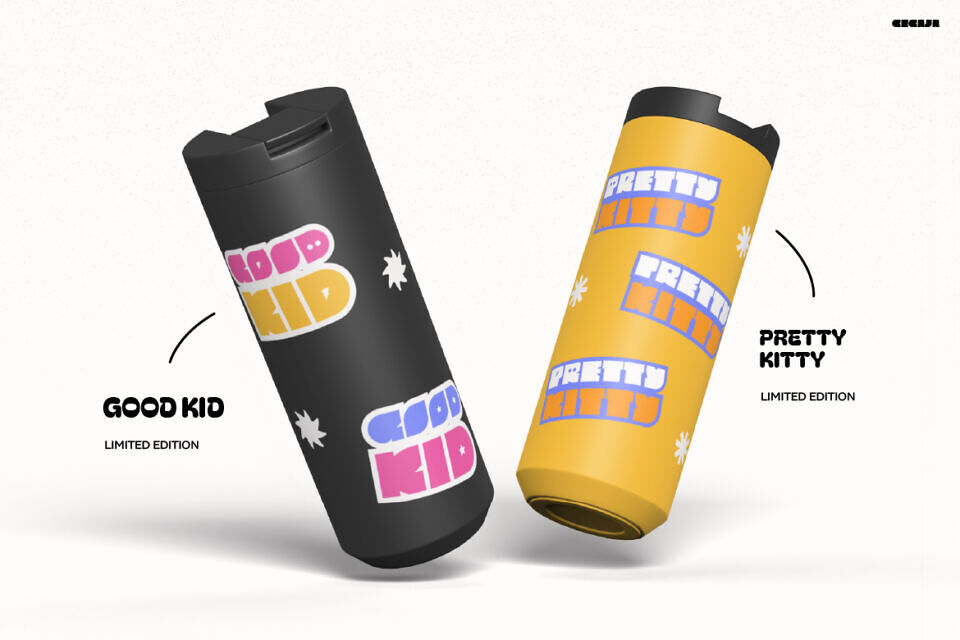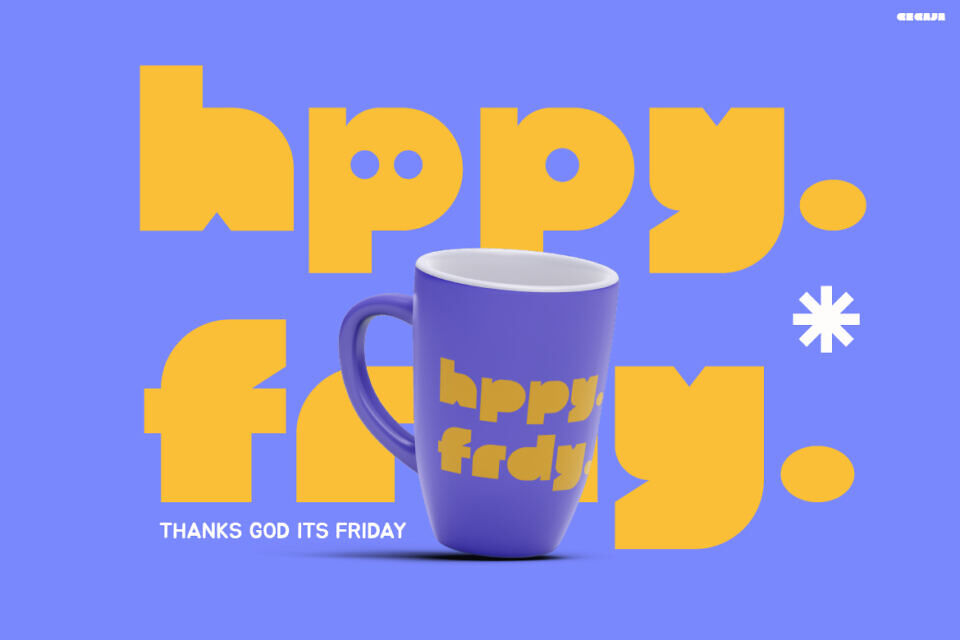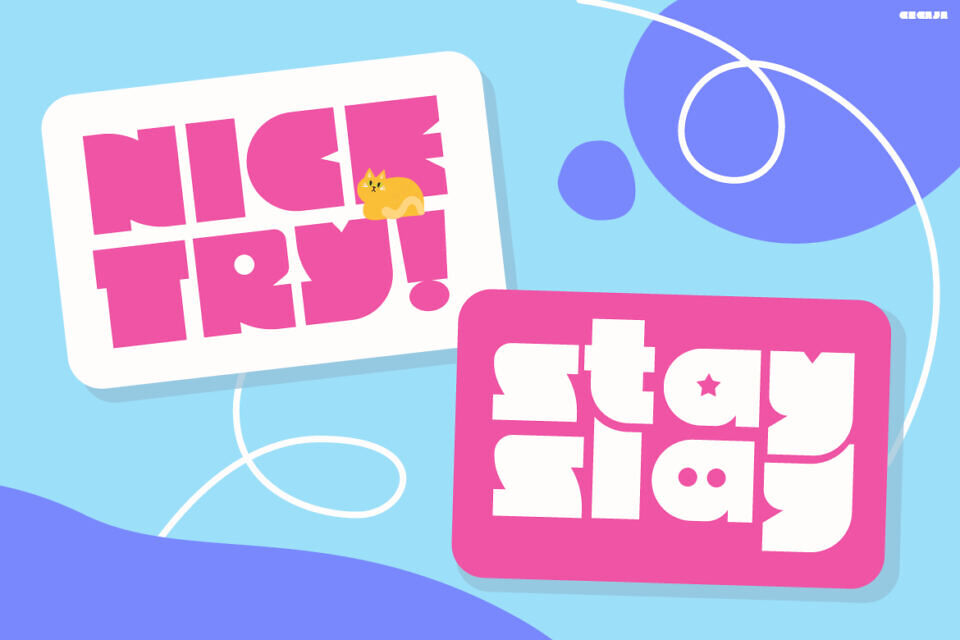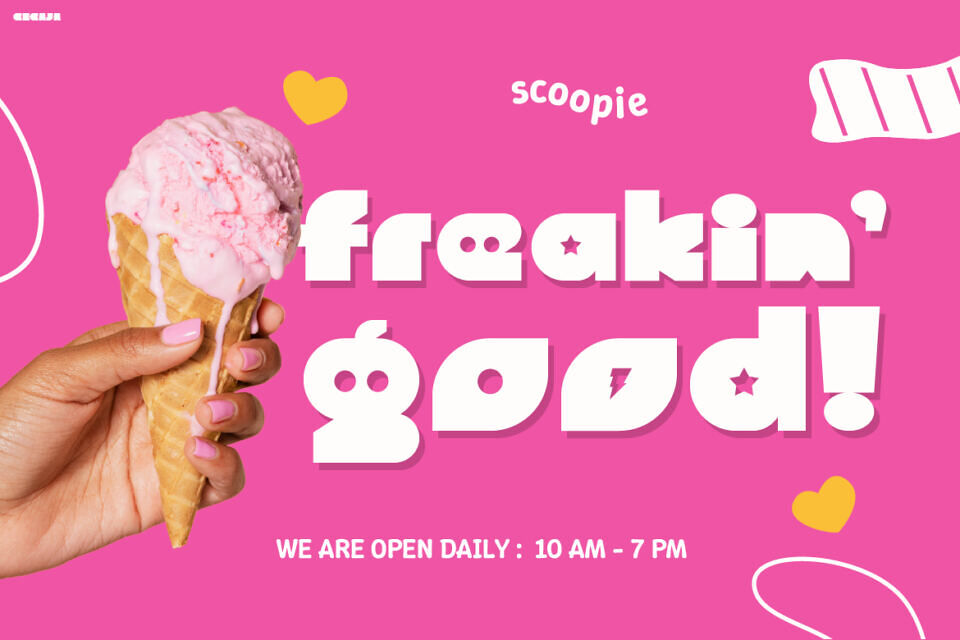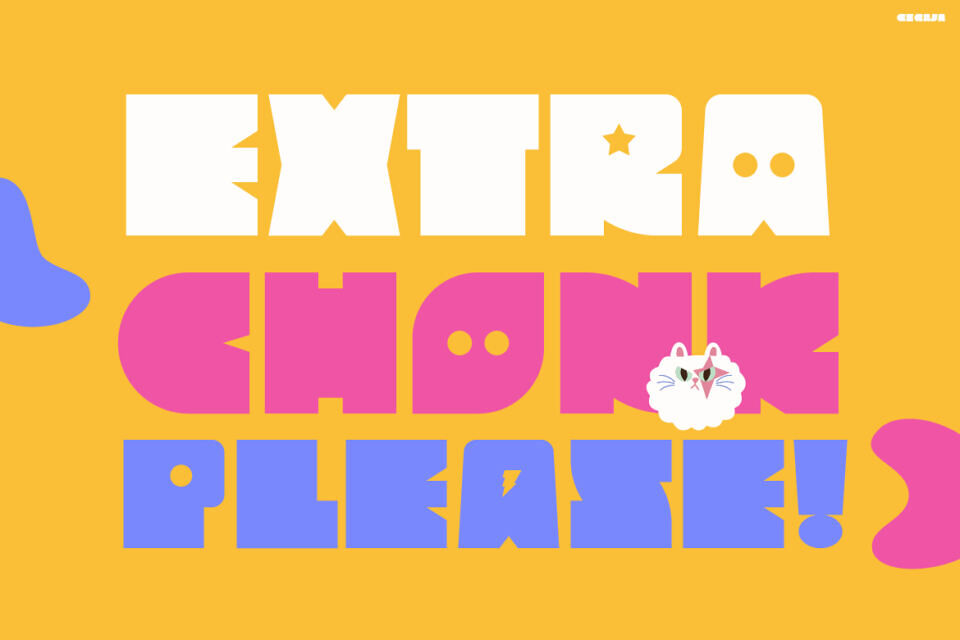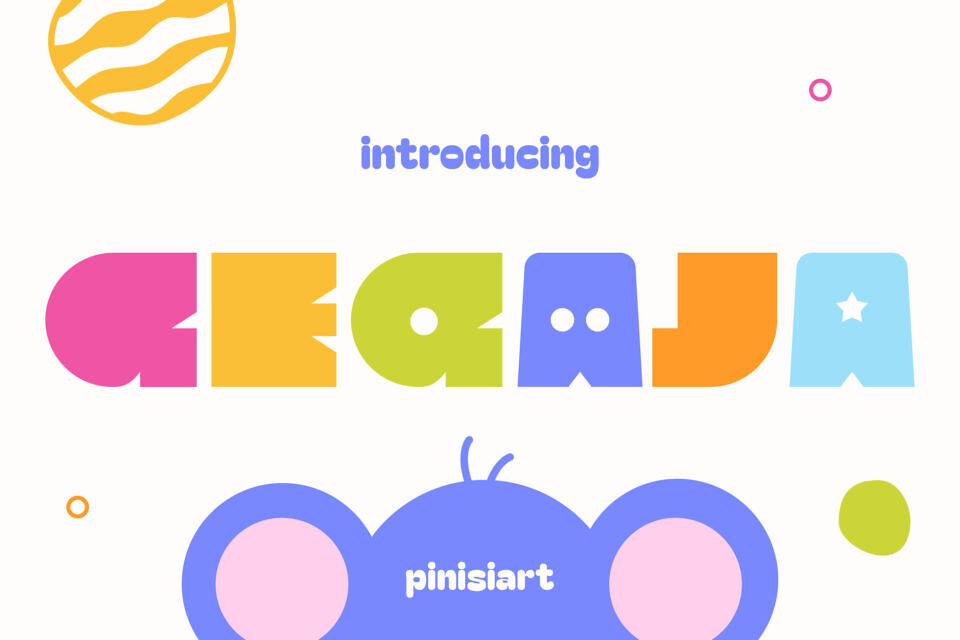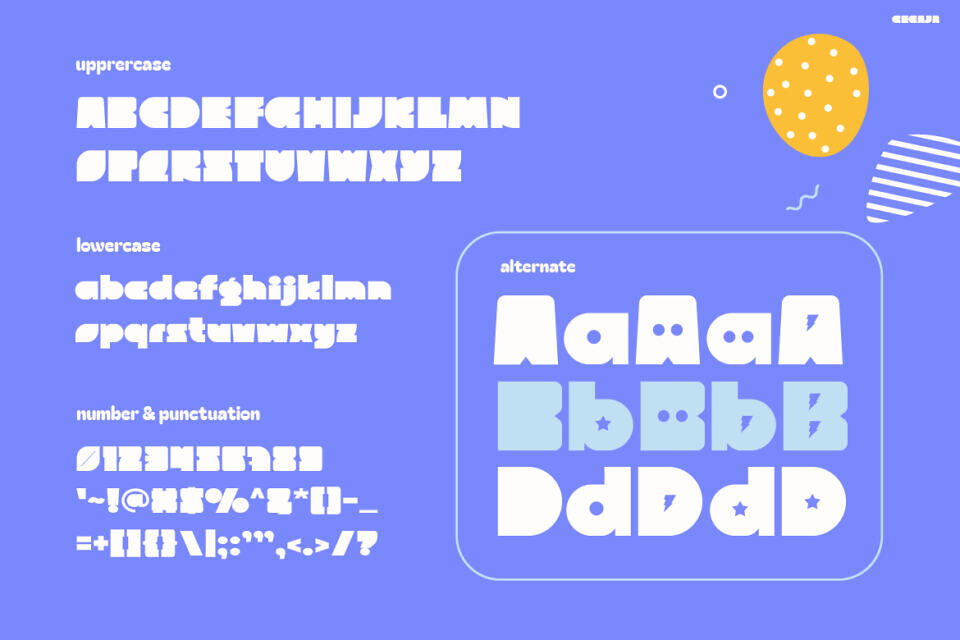
Gegaja Font
GEGAJA is where bold shapes meet cheerful energy, creating a typeface that feels alive and full of personality. This chunky, pop-inspired font instantly turns every word into a fun design moment. Moreover, each letter bursts with joy through smooth curves and well-balanced proportions. As a result, it brings charm, movement, and attention to every layout you create.
From the first glance, you’ll notice how friendly yet stylish this font looks. Its shapes are playful but still carefully designed, giving your project both fun and sophistication. Whether you’re making posters, packaging, or social media content, GEGAJA easily adds that modern pop your visuals need.